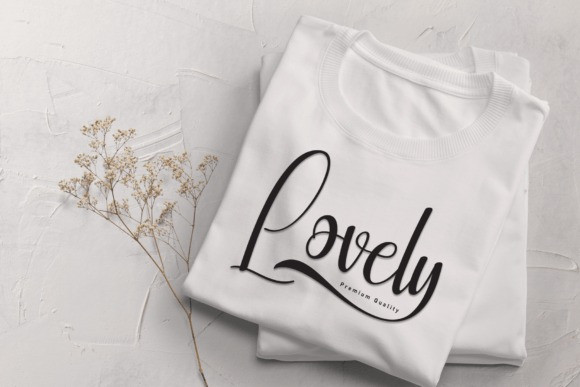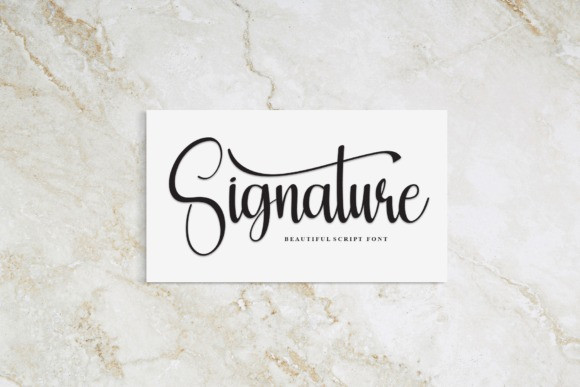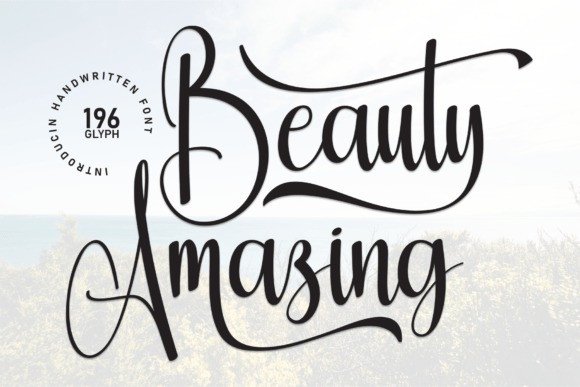
Beauty Amazing Script Font
Beauty Amazing Script Font is a lovely and timeless handwritten font. It is the best choice for creating eye catching logos, branding and quotes. Every letter has a unique and beautiful touch, which will make your design come alive!